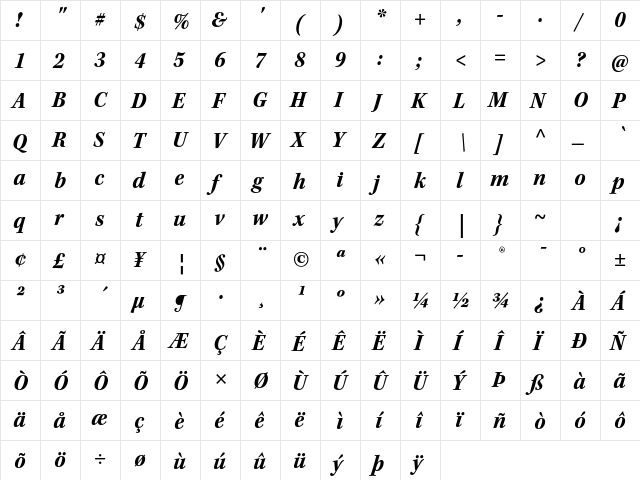
Kepler Std Bold Semicondensed Italic Font Preview
| Designer | Robert Slimbach |
Design Context for Kepler Std Typeface
Kepler Std offers clean, dependable letterforms without strong stylistic allegiance, making it a practical choice for designers who need flexibility. The dynamic lean of this cut emphasises speed and emphasis in any layout. The heavy weight commands attention and anchors typographic hierarchies. The condensed width makes it efficient for tight spaces without sacrificing legibility.
Pro Tip: Use Kepler Std for emphasis, pull quotes, and subheadings where its slanted energy can add rhythm to the layout.